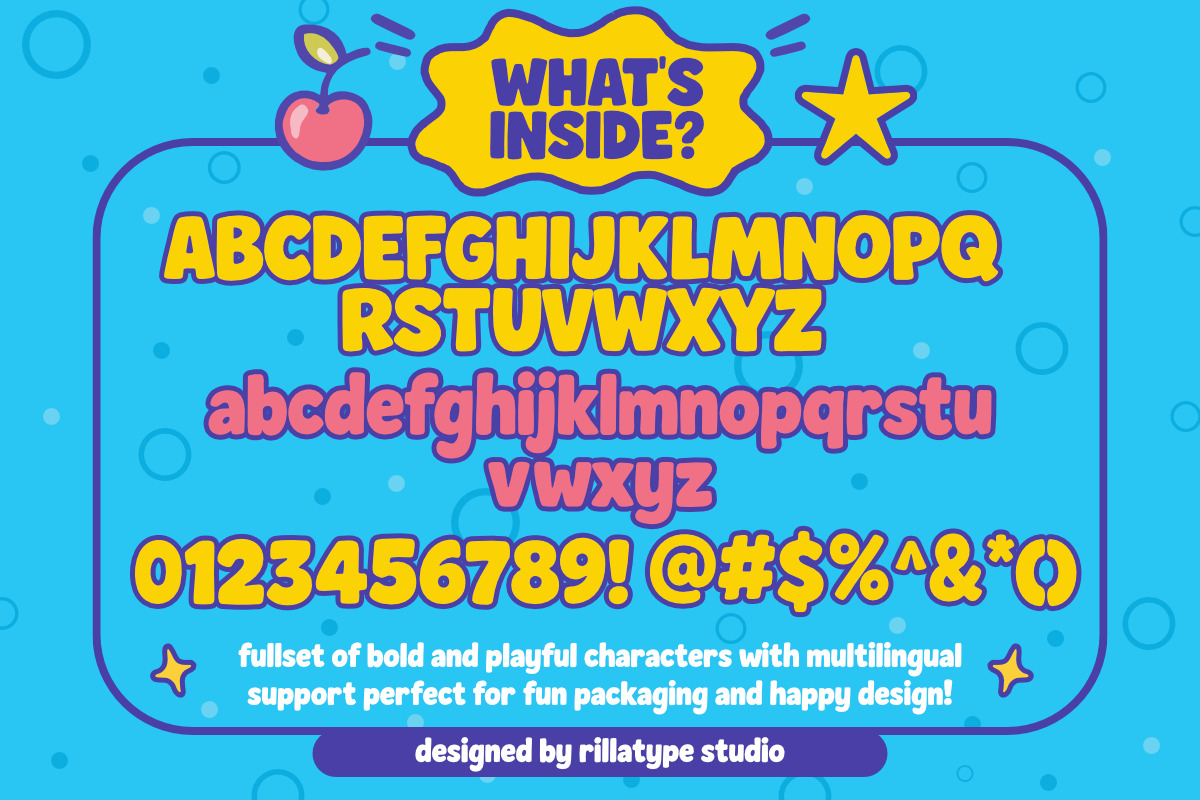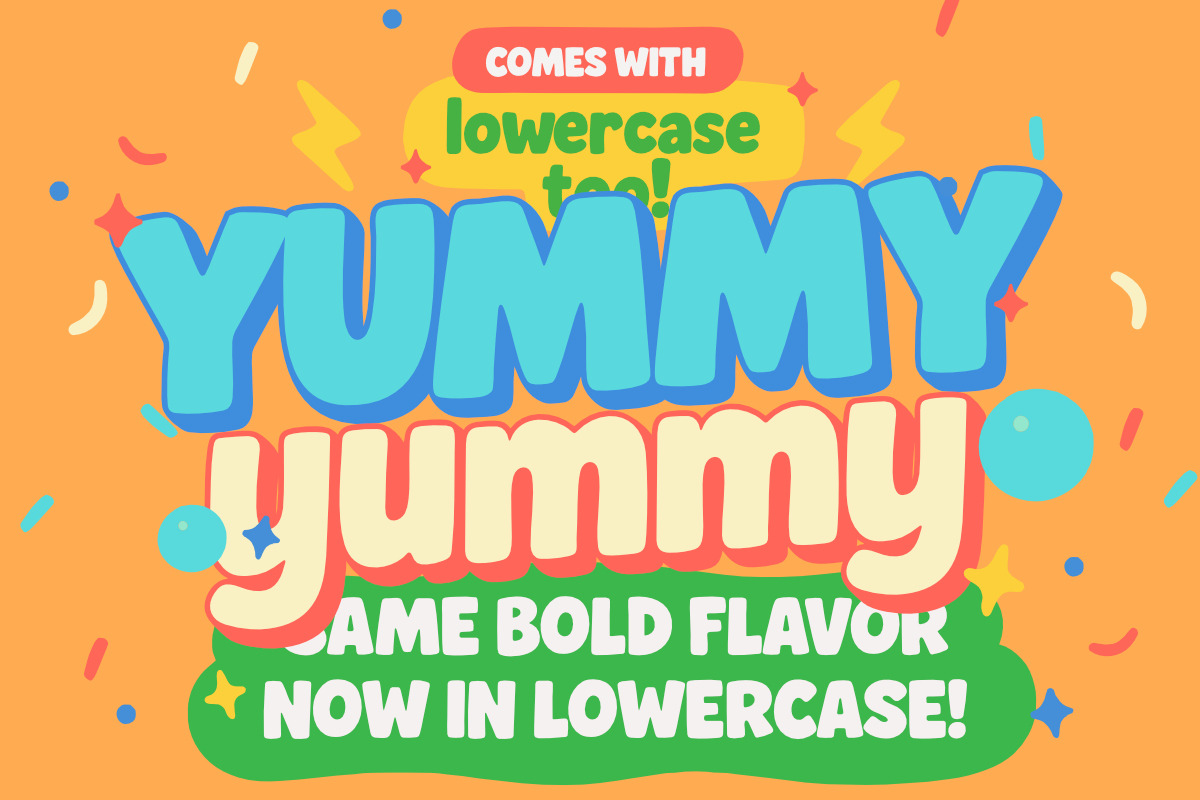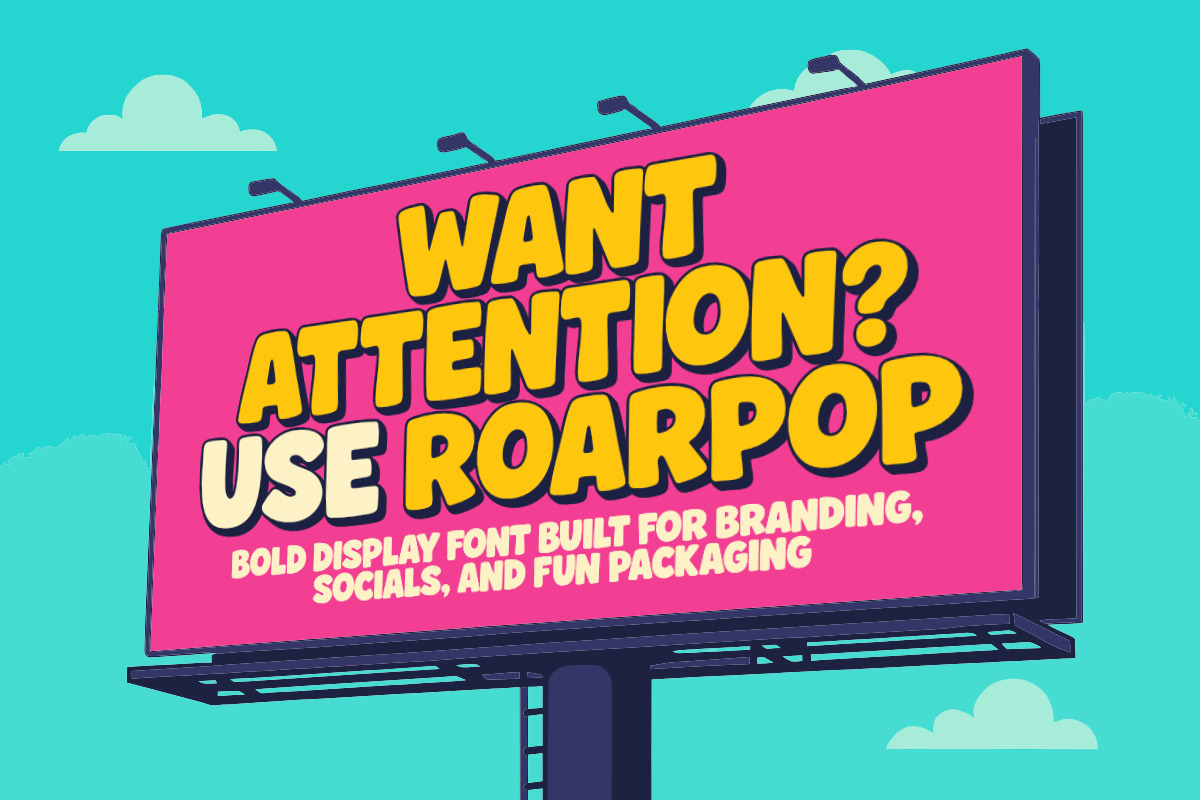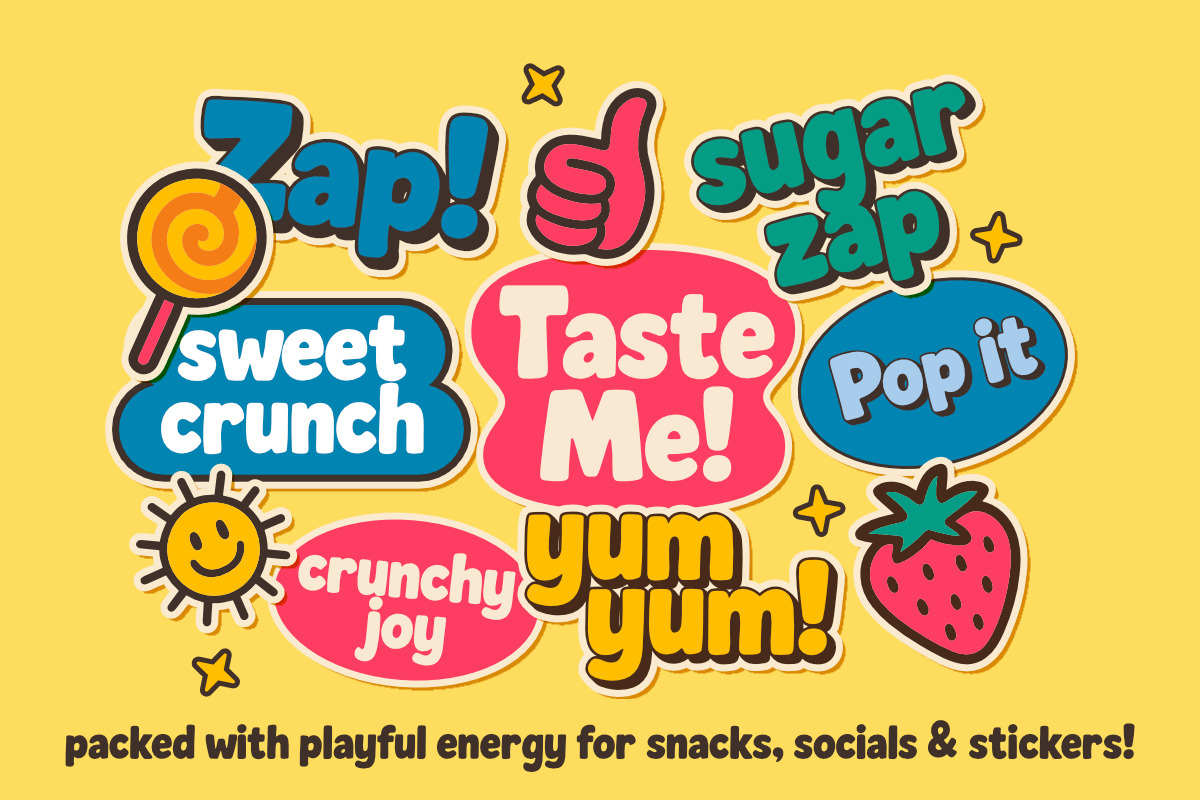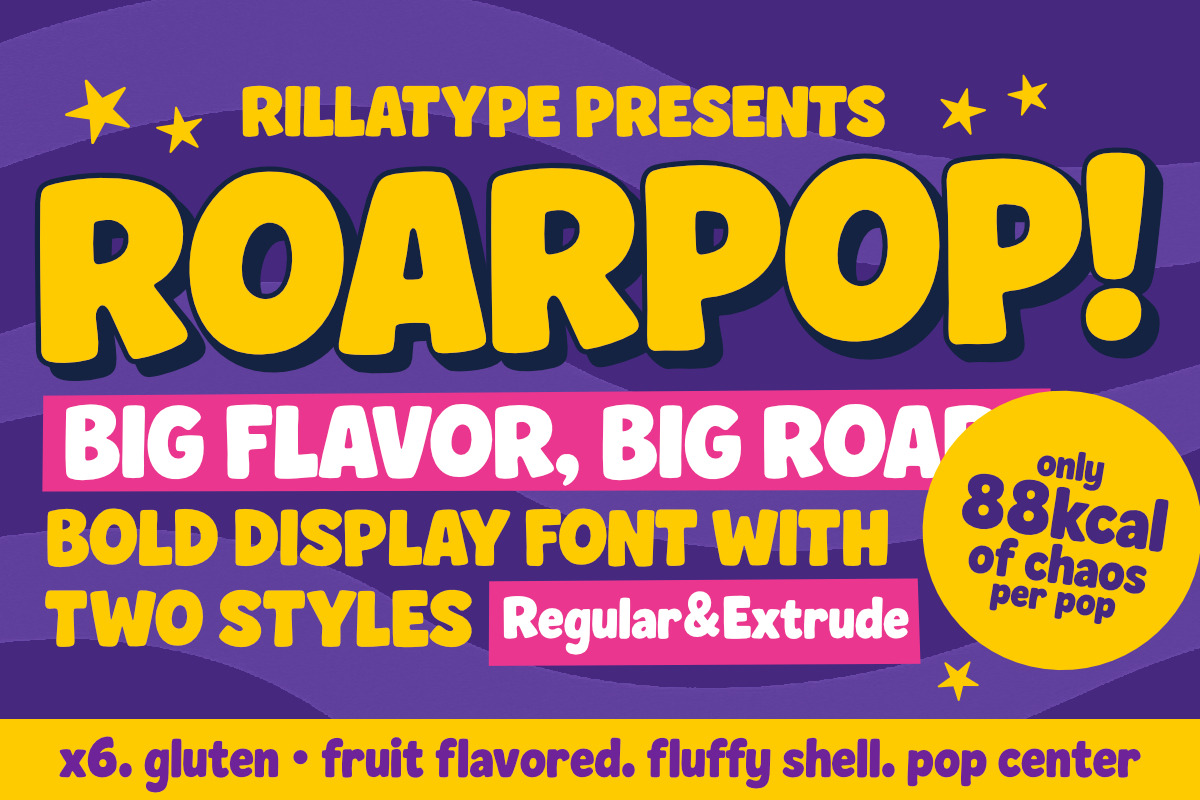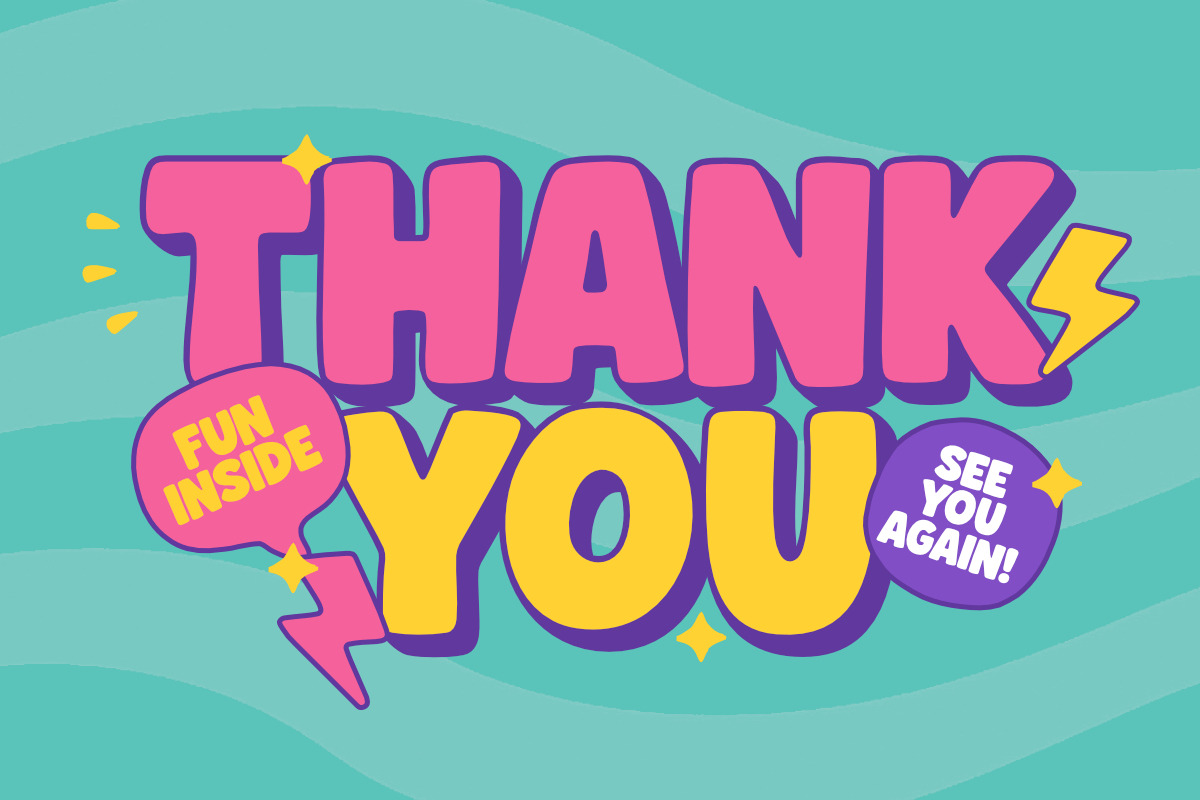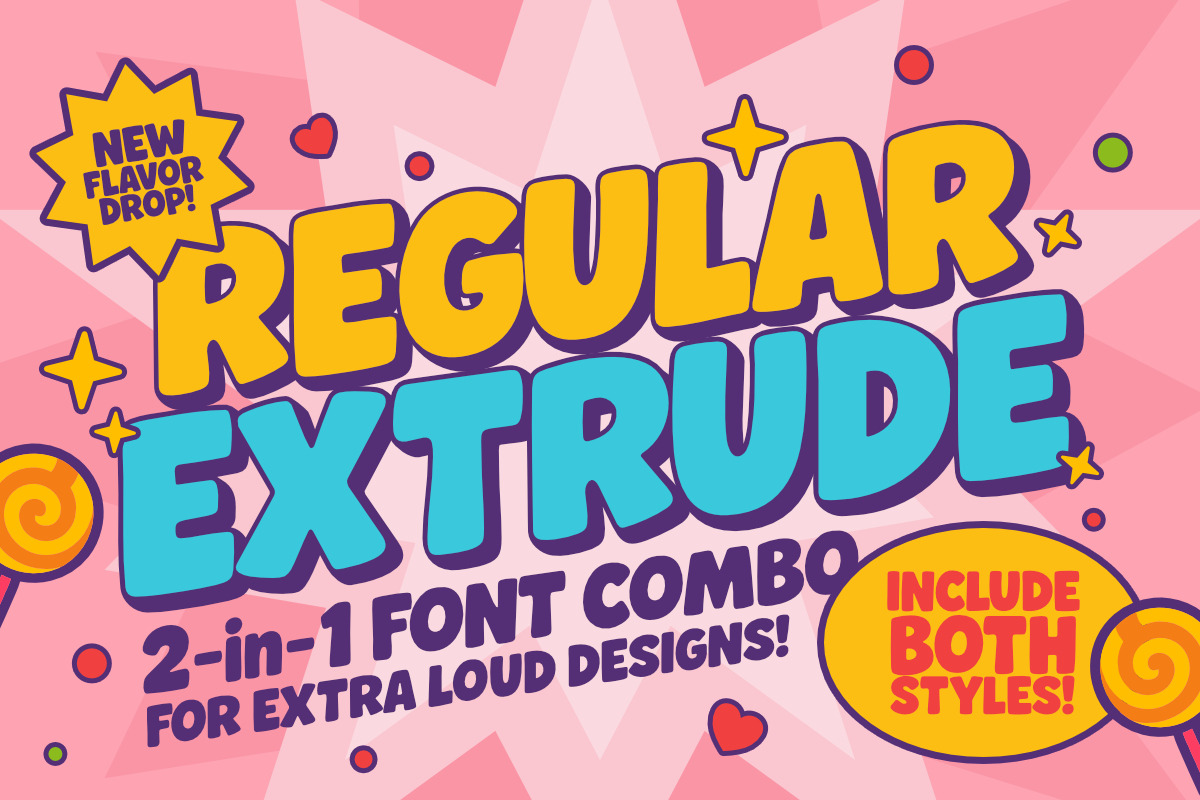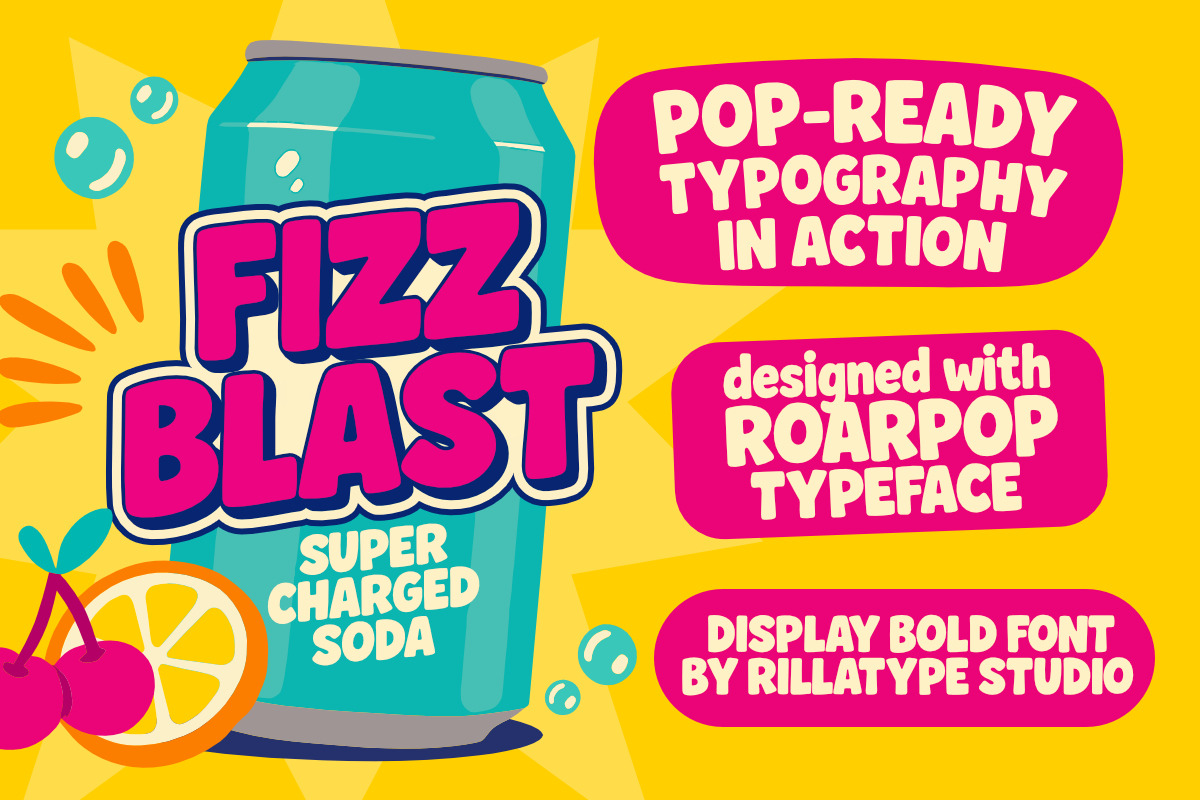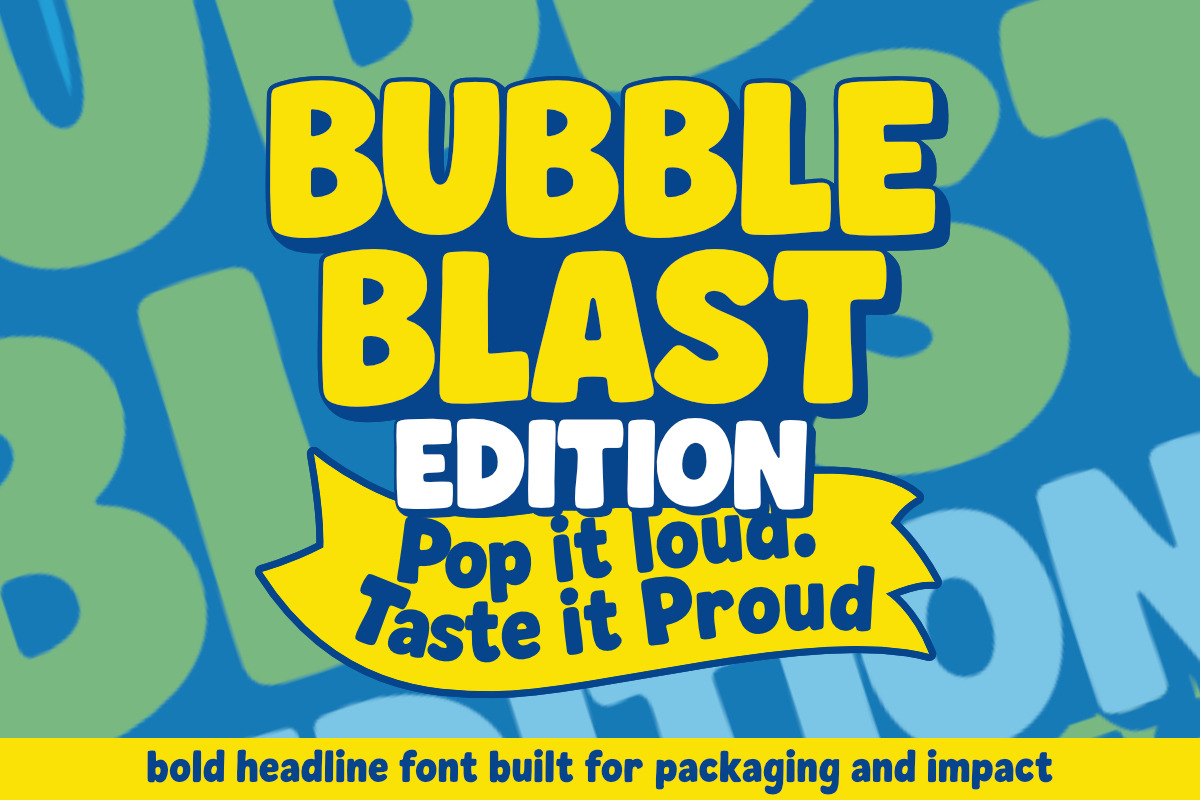
Roarpop - Fun Bold Font
Say hello to ROARPOP — a bold and playful display font inspired by colorful snack packaging and childhood treats. Designed to stand out with clean lines and strong shapes, ROARPOP is perfect for projects that need a fun yet confident look.
Ideal for food branding, kids’ products, merch, posters, and social media graphics, this typeface brings loud energy and cheerful attitude wherever it’s used.
ROARPOP comes in two styles — Regular and Extrude — so you can mix, match, or layer them for even more visual impact. Includes full uppercase and lowercase letters, numbers, punctuation, and essential symbols.